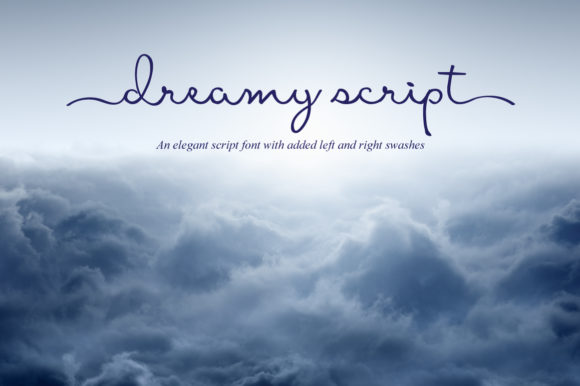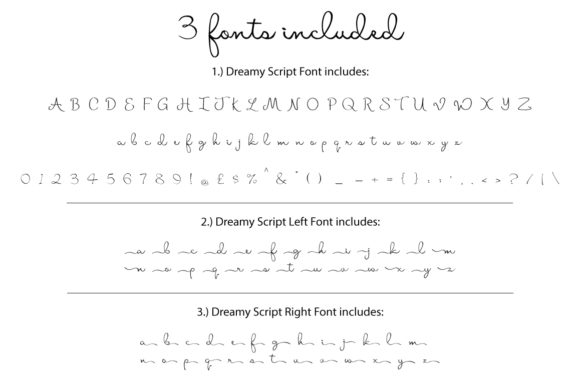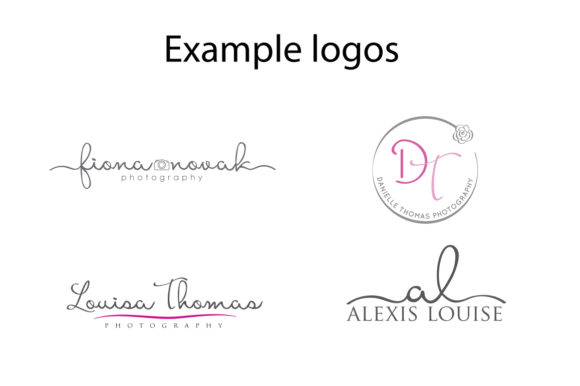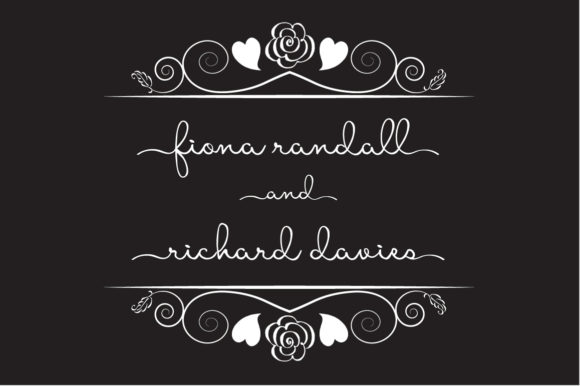
HomeScript FontsDreamy Font Script Fonts Dreamy Font FacebookXPinterestWhatsApp Dreamy Font Poster 2 Dreamy Font Poster 3 Dreamy Font Poster 4 About Dreamy Font Dreamy is a hand-drawn, elegant and flowing font. Use it to turn any design idea into a standout! DOWNLOAD NOW People also explored Finstago Font Billion Play Tablets Font Turkey Camping Font Accurate Font Sthefany Font Scarlett Font Spooky Font Buthernyla Delmond Font 295 0 TagsDreamy Font Previous articleCardiff FontNext articleDear Journal Font LEAVE A REPLY Cancel reply Comment: Please enter your comment! Name:* Please enter your name here Email:* You have entered an incorrect email address! Please enter your email address here Website: Save my name, email, and website in this browser for the next time I comment. Personal Use Free City Tour Personal Use Free Read more about this font Frizton Personal Use Free Read more about this font Tomatoes Personal Use Free Read more about this font Thruster Personal Use Free Read more about this font BLOG Top 7 Google Fonts Alternatives for Faster and Privacy-Friendly Web Design (2025) Top 7 Google Fonts Alternatives for Faster and Privacy-Friendly Web Design (2025) When it comes to web typography, Google Fonts has long been the go-to... Transform Your Website: Elevate Your Typography with 7 Best Web Font Generators Exploring Font Trends Using Fonts in Digital Marketing: Tips to Strengthen Your Brand Identity